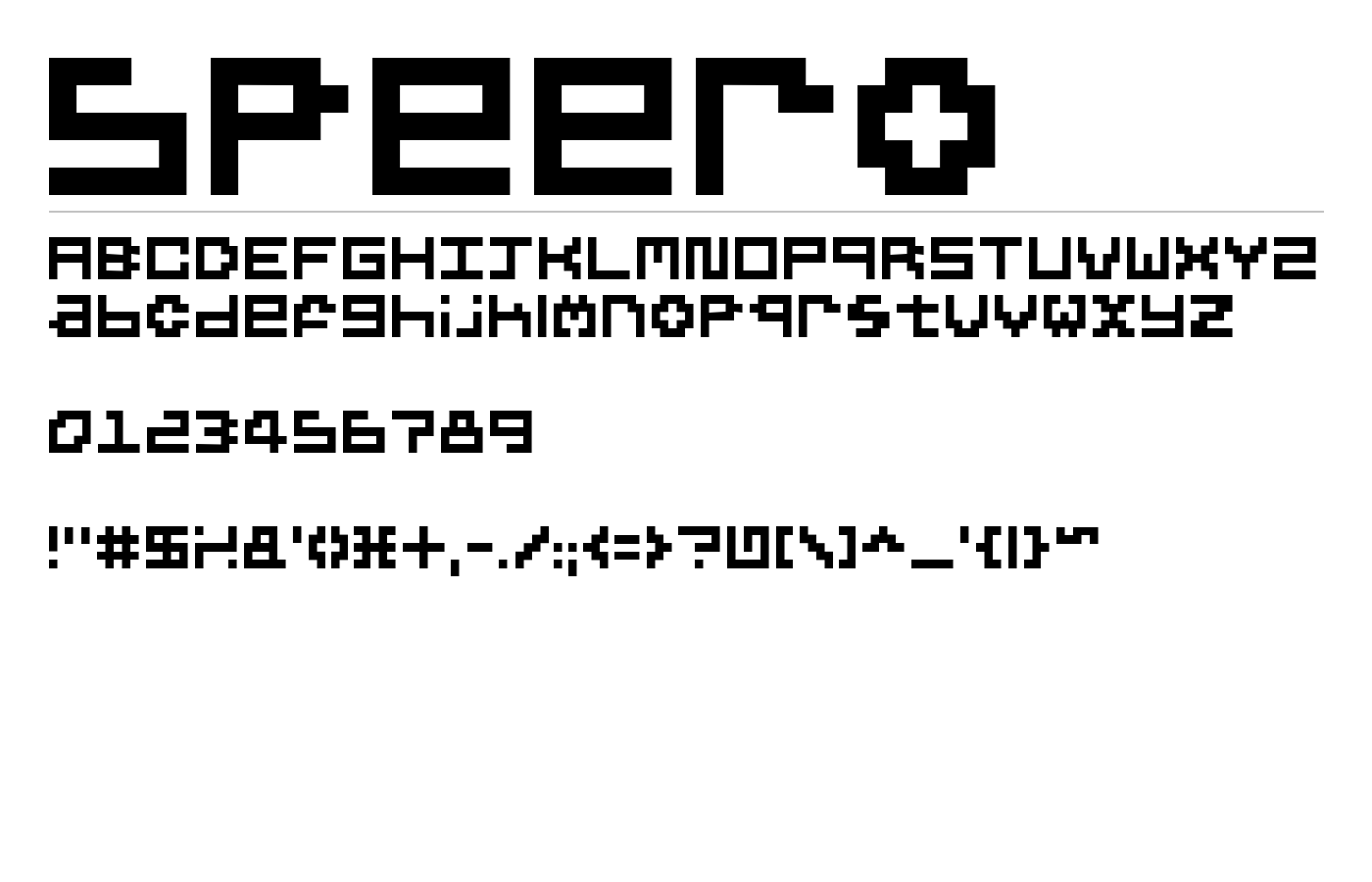
5peero is a bold, pixel-style sans serif font with a strong geometric and blocky design, reminiscent of retro digital or arcade typography. Its uniform stroke weight and squared forms give it a techy, vintage video game vibe, making it ideal for projects seeking a nostalgic, digital aesthetic. This font works best in logos, headlines, posters, and digital-themed branding where a distinctive, edgy look is desired.
5peero Font